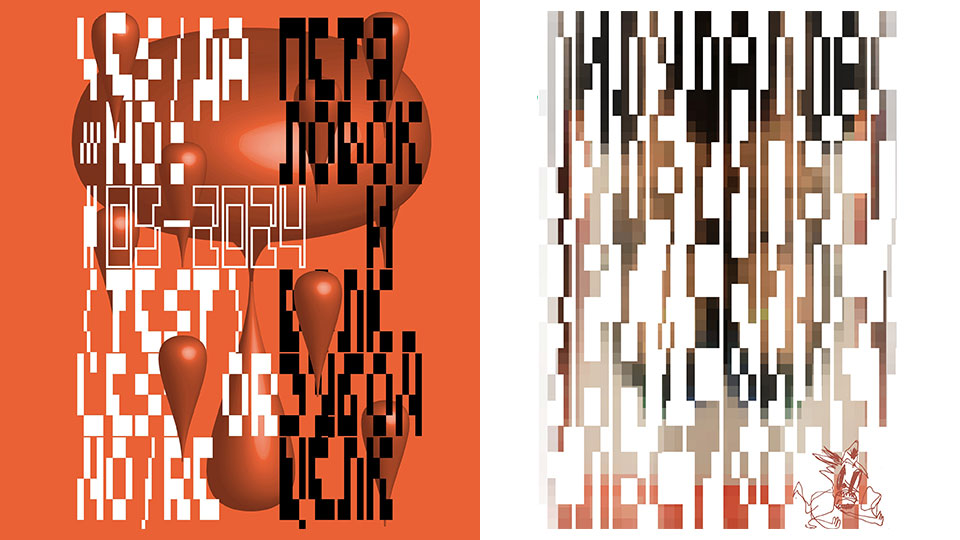
Download P95-CYR font, a condensed, high contrast pixel display typeface based on a modular grid. It features tightly packed, narrow letterforms designed with pixel-perfect accuracy, creating a striking visual impact.
Designer: Evgeniy Artsebasov